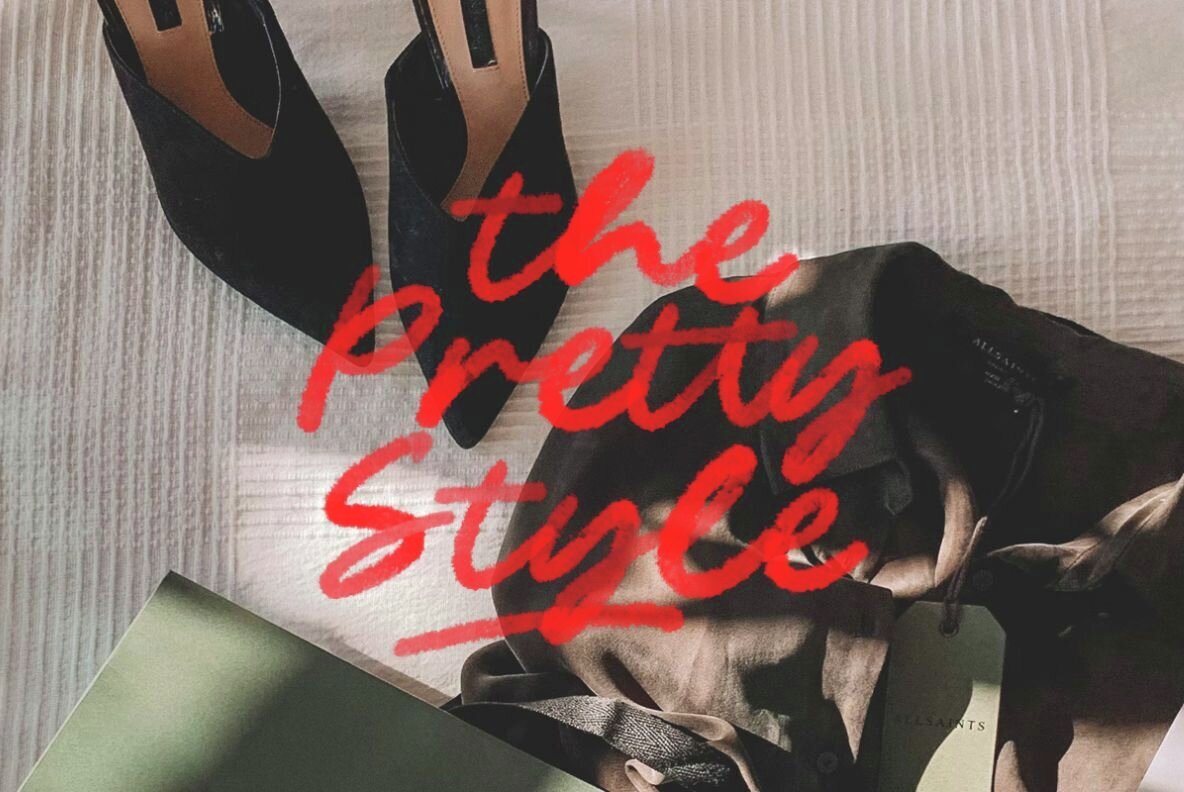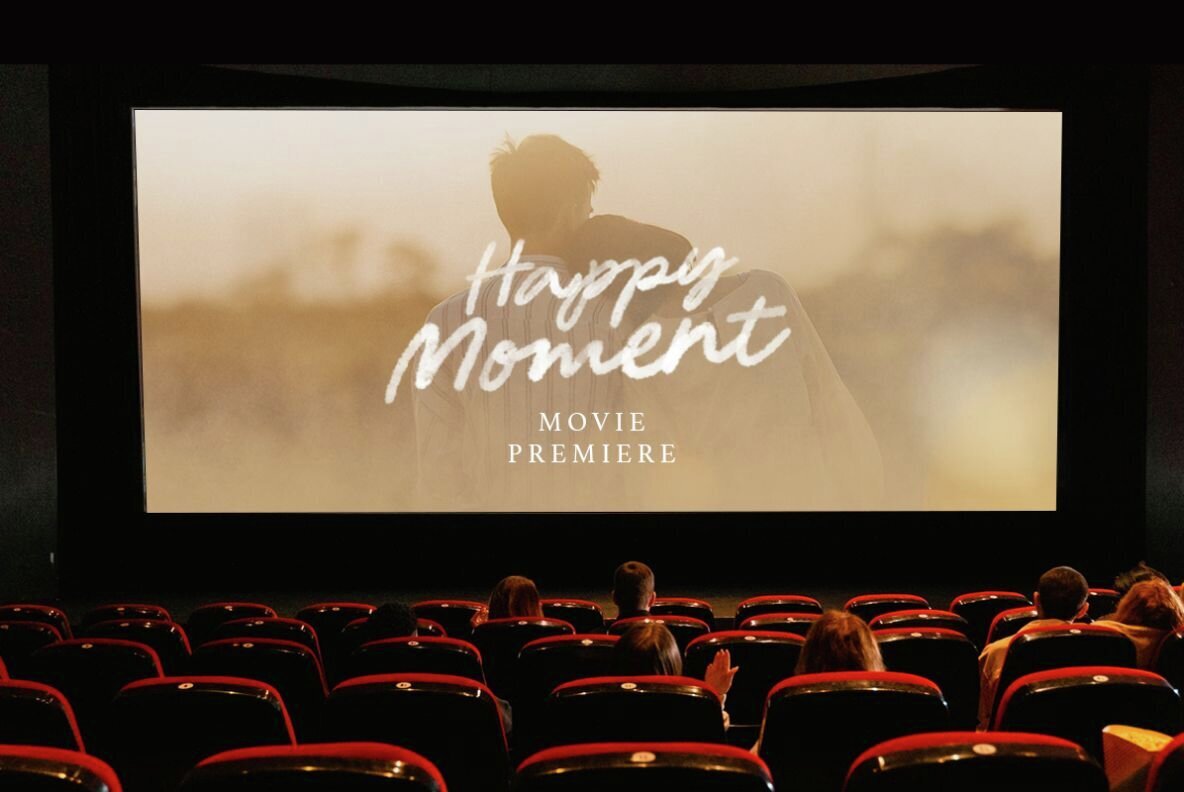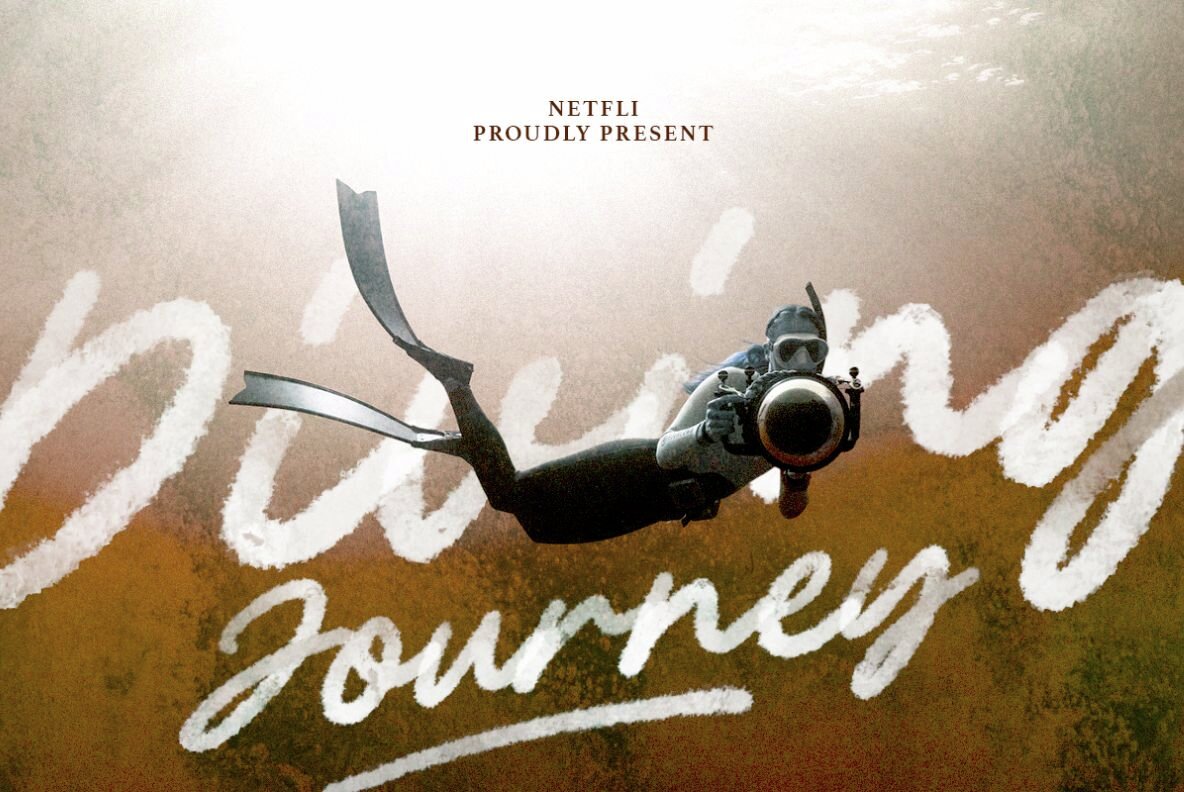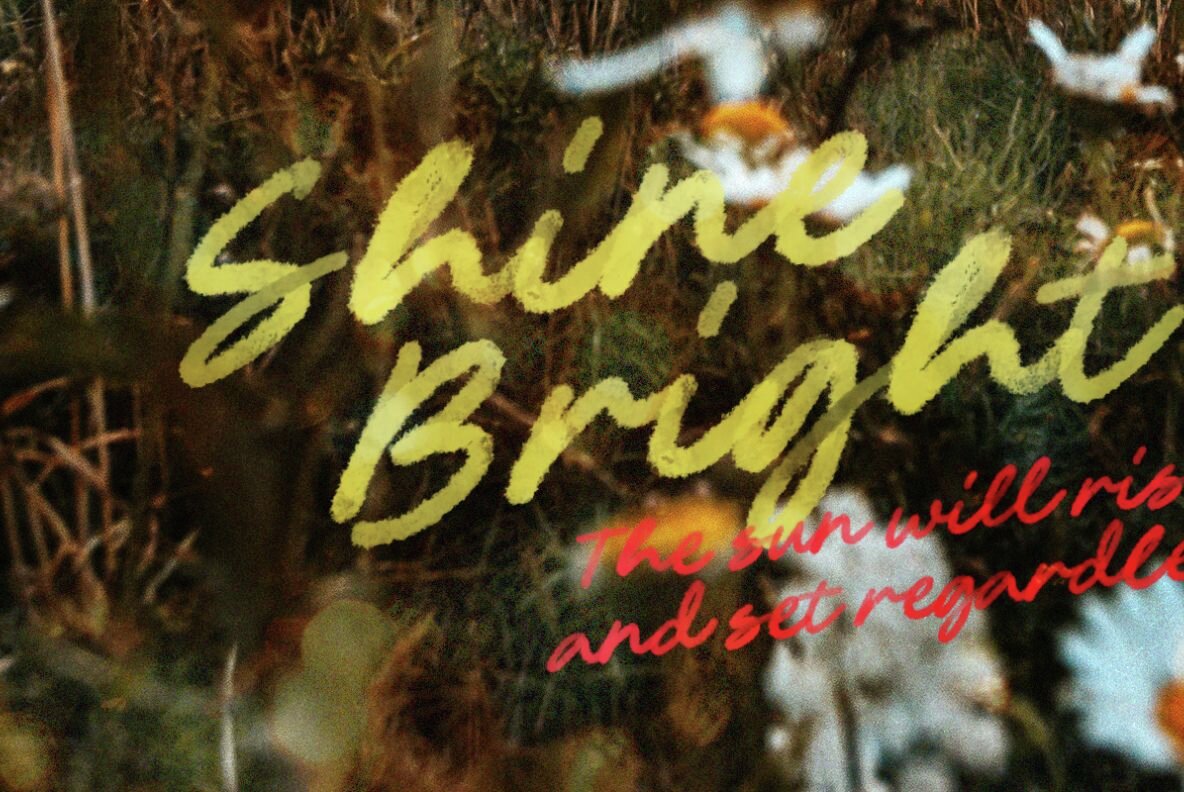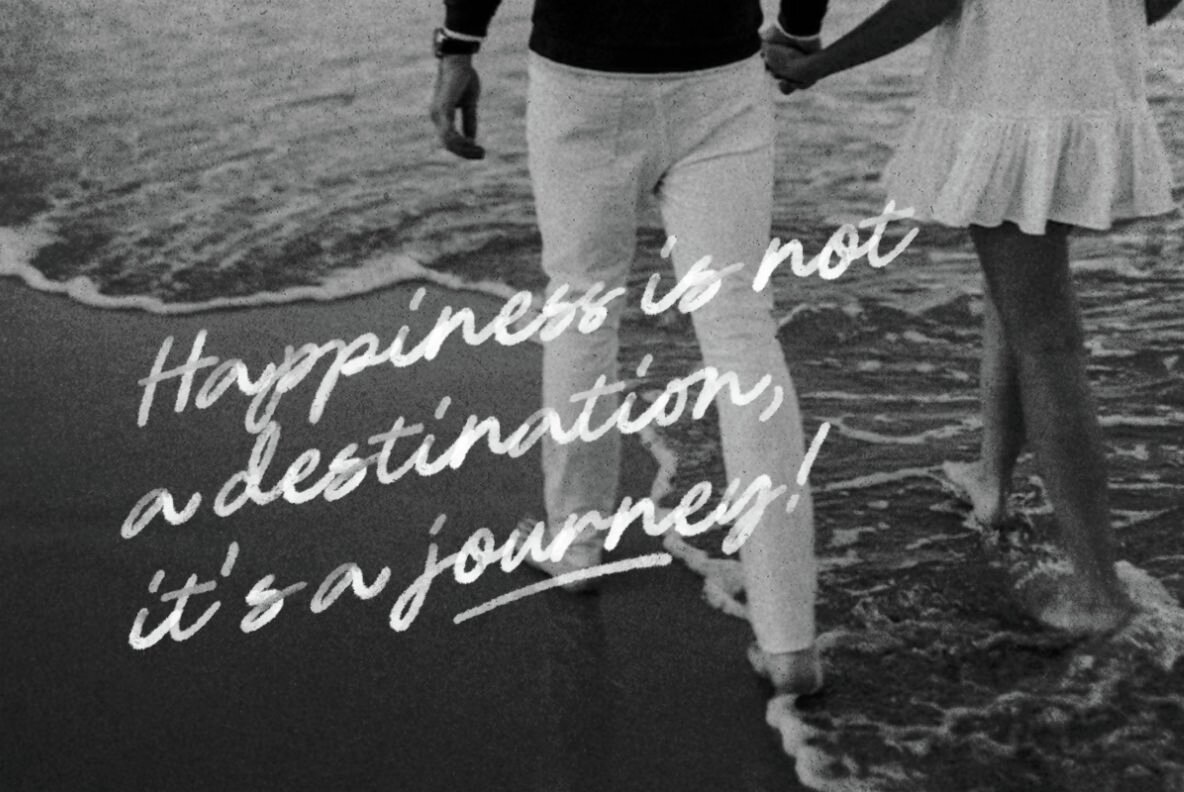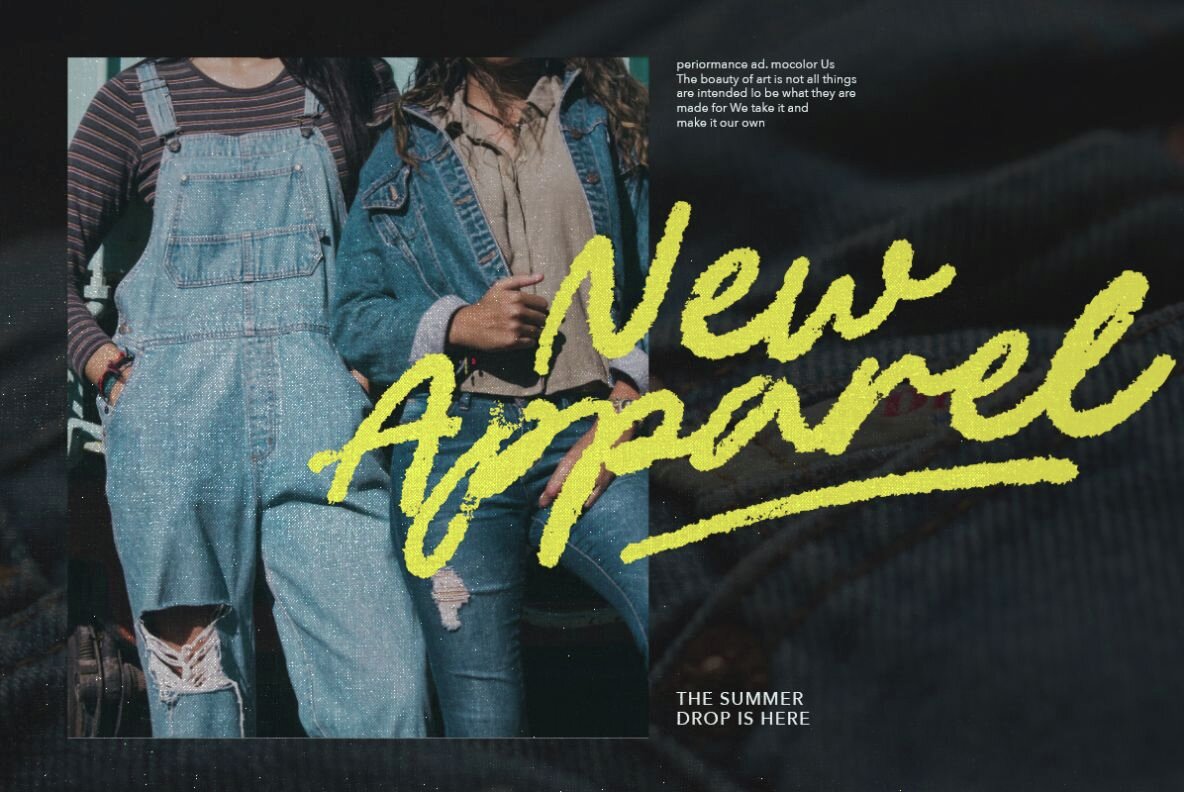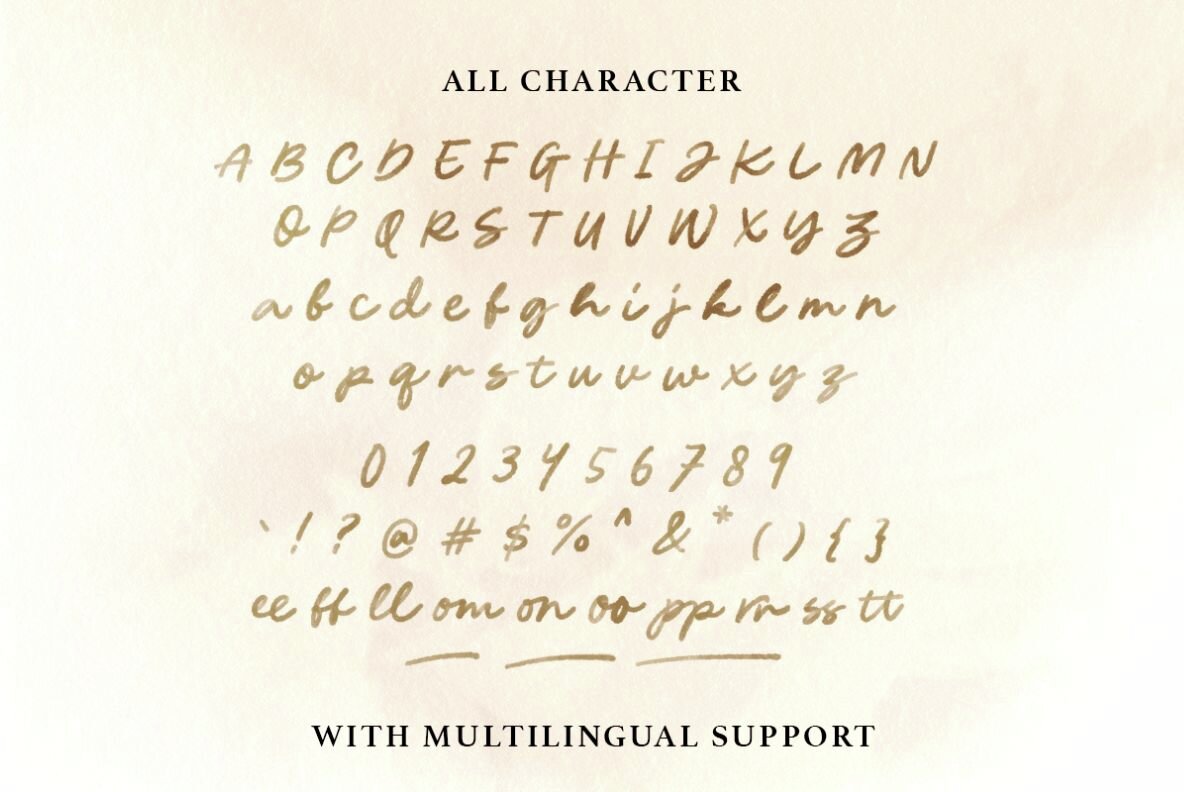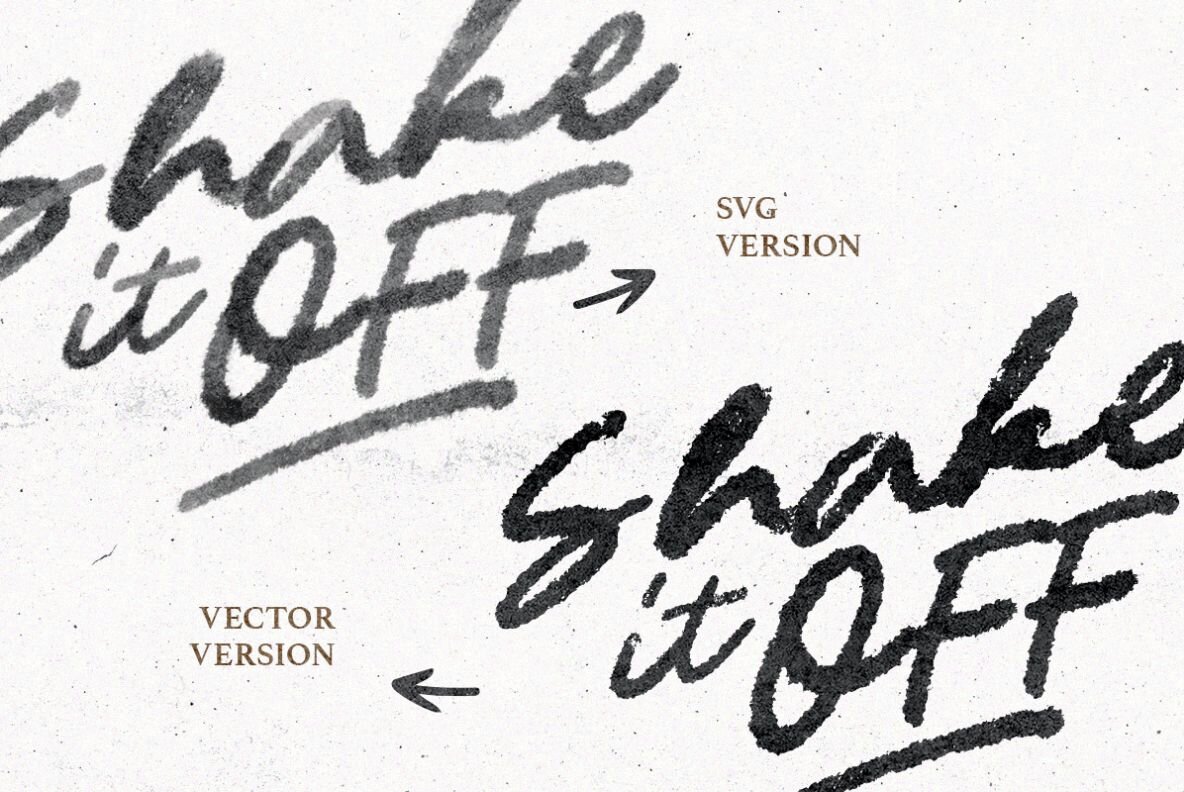
Bon Appetit Font
Bon Appetit Regular
Bon Appetit is a unique script font featuring a transparent watercolor texture, perfect for adding a touch of artistry to your designs. It includes both SVG and vector formats, offering versatility for various design projects. The font is equipped with ligatures, enhancing the natural and handmade aesthetic of your text. Additionally, using the underline option can create a dramatic effect, making your work stand out.
This font includes a comprehensive set of numbers, symbols, and punctuation marks, ensuring flexibility and functionality in your design endeavors. Bon Appetit also supports multiple languages, making it an ideal choice for designers working on international projects. Whether you're crafting invitations, branding materials, or social media graphics, this font adds both elegance and a personal touch.